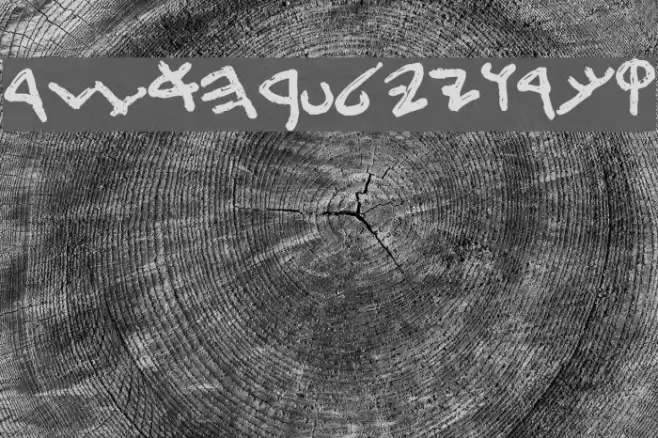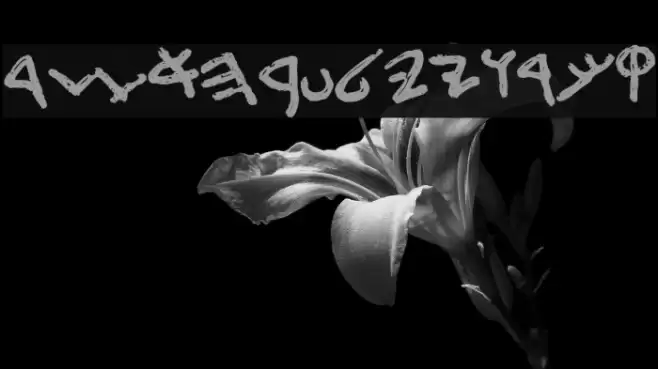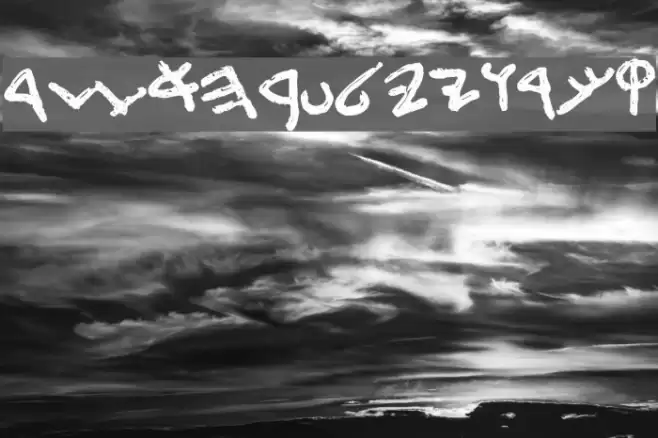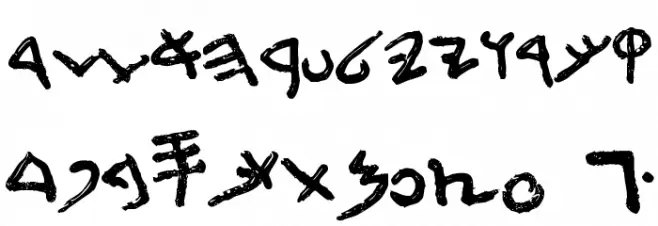
First Temple Font
First Temple Description
Rough, ancient script style with irregular, hand-drawn strokes and a distressed texture, evoking the look of early Semitic or proto-Hebrew inscriptions. The characters are uneven in size and spacing, with a primitive, chiseled appearance.
Primitive, hand-drawn script with ancient inscription aesthetics from Uncategorized fonts.
- Proposed Projects: Historical recreations, archaeological displays, museum graphics, fantasy world-building, themed posters.
- Character Spacing: Wide
- Overall Style: Ancient, Decorative, Primitive
- Use Case: Logos, Titles, Posters, Themed Graphics